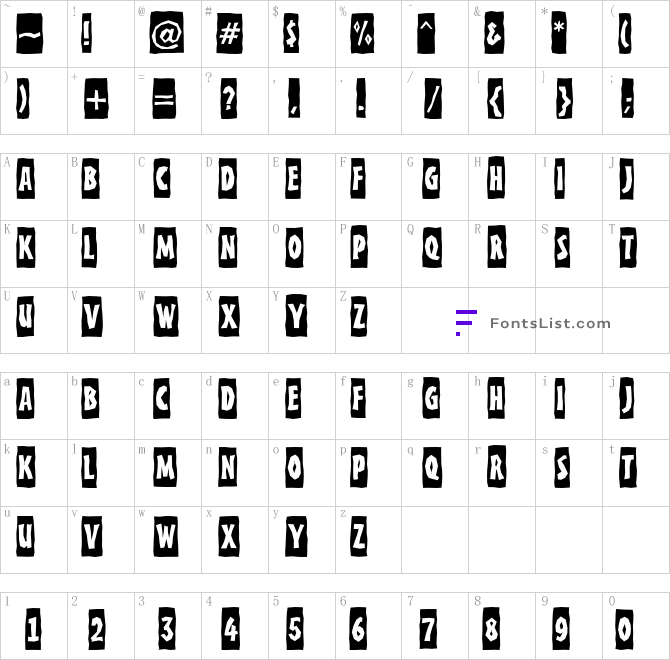
- Font Name:a_FrudgerCmBrk
a_FrudgerCmBrk.ttf is a very beautiful artistic font, a_FrudgerCmBrk.ttf is widely used in the design and printing of various books and pictures,a_FrudgerCmBrk.ttf has a strong visual impact,a_FrudgerCmBrk.ttf is a commonly used font in newspapers, magazines and books, and is used in posters, e-commerce Poster design, store design, logo design, font design and other fields.a_FrudgerCmBrk.